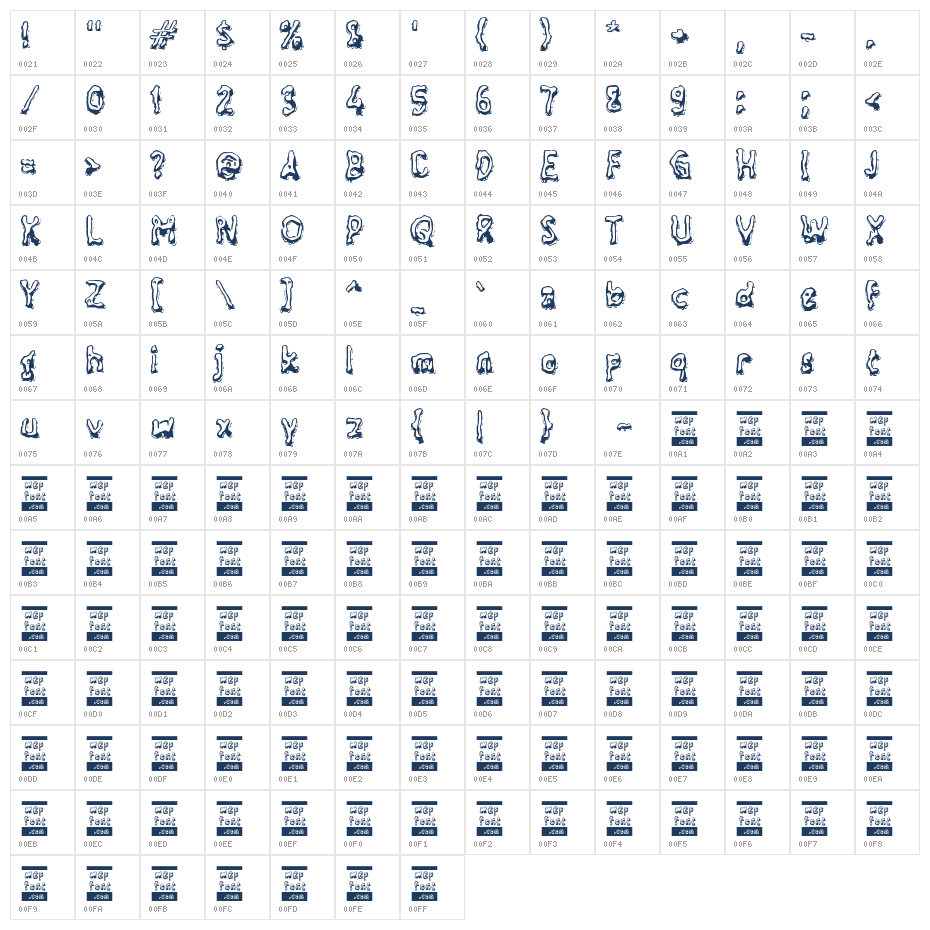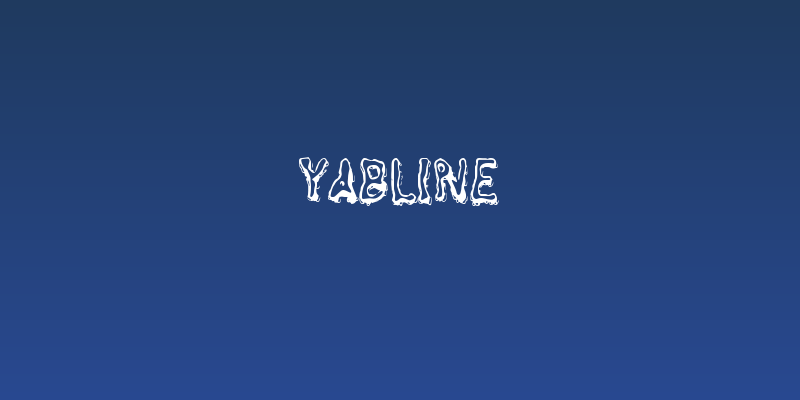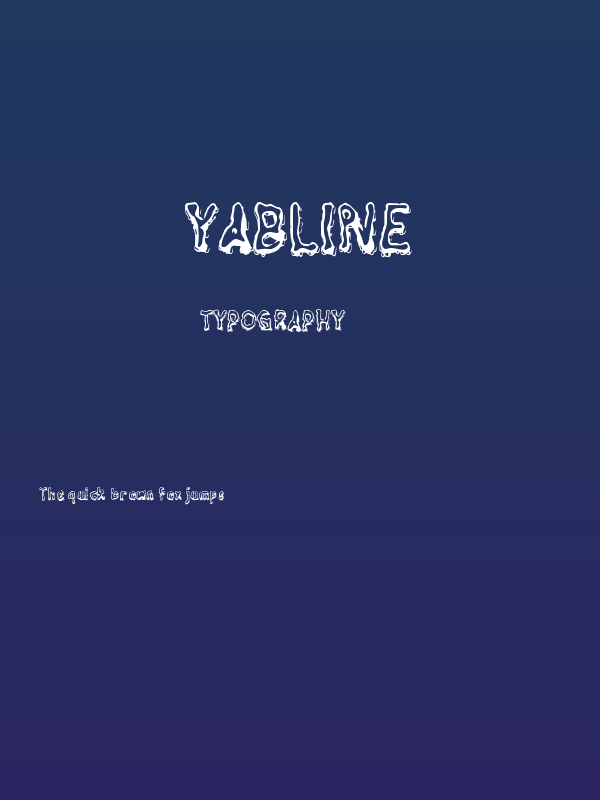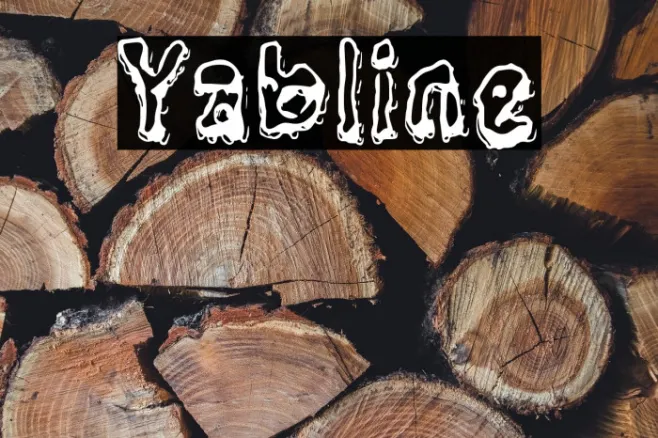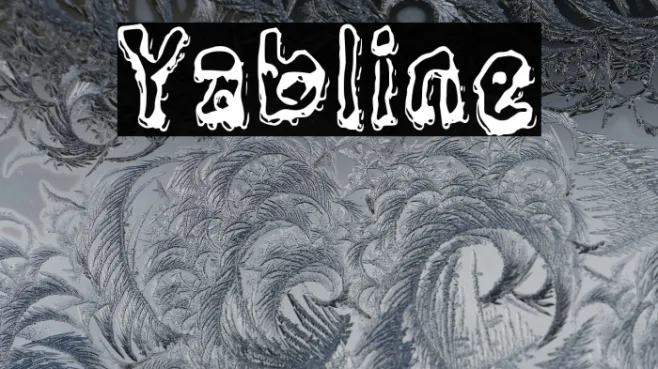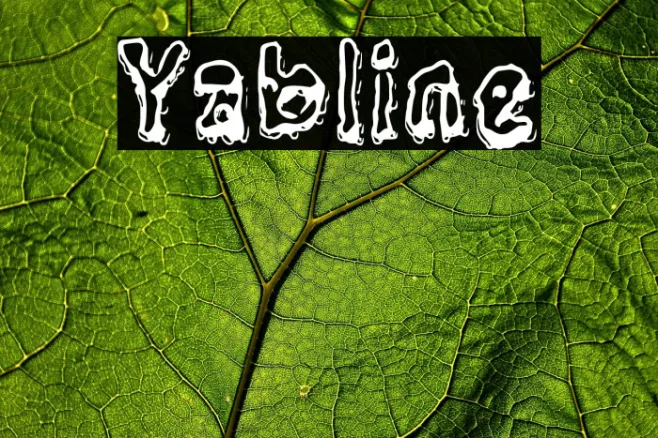
Yabline Font
Yabline Description
A decorative, irregular, hand-drawn style font with a sketchy, organic appearance, featuring uneven strokes and a playful, artistic vibe.
YABLINE UPPERCASE
YABLINE LOWERCASE
YABLINE OTHER CHARS
| Overall Style | Artistic, Hand-drawn, Playful |
| Use Case | Headlines, Titles, Artistic projects |